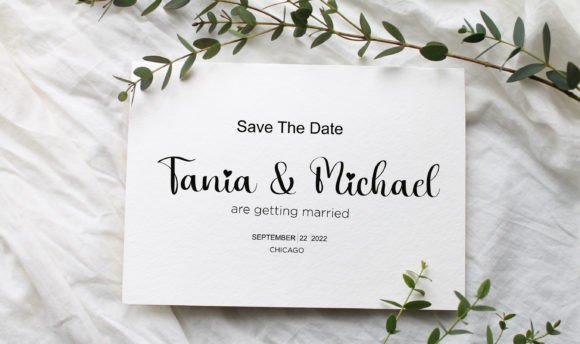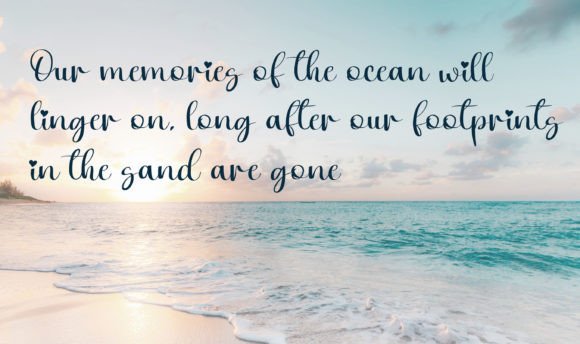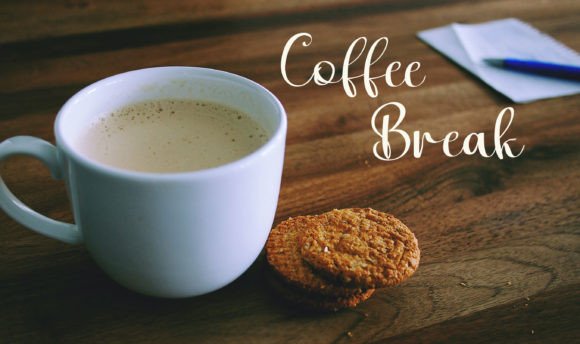
Introduction to Palm Beach Font
Palm Beach is an attractive, elegant, and charming handwritten font.
It will look great on wedding designs, thank you cards, quotes, greeting cards, logos, business cards, brand identity, clothing industry, posters, games, magazines, books, Instagram, websites, cartoons, YouTube, or any other project design that requires a handwritten touch .
Key Features of Palm Beach Font
Why Choose Palm Beach Font?
Palm Beach Font offers exceptional quality and versatility, making it a valuable addition to your design toolkit. Whether you’re creating for personal projects or commercial use, Palm Beach Font delivers professional results.